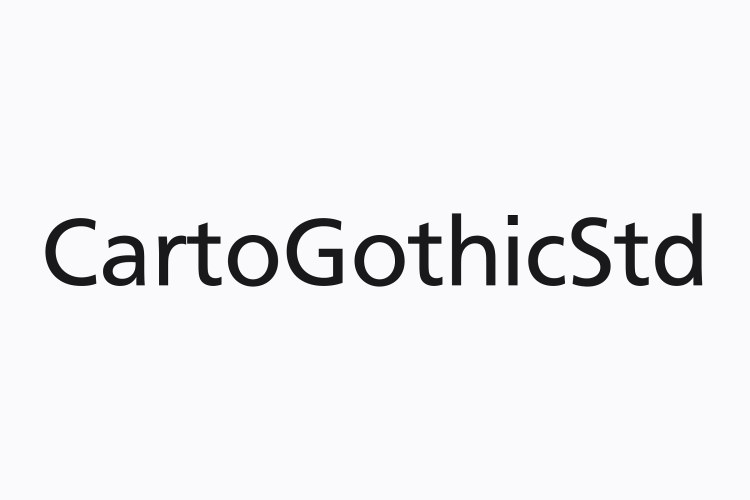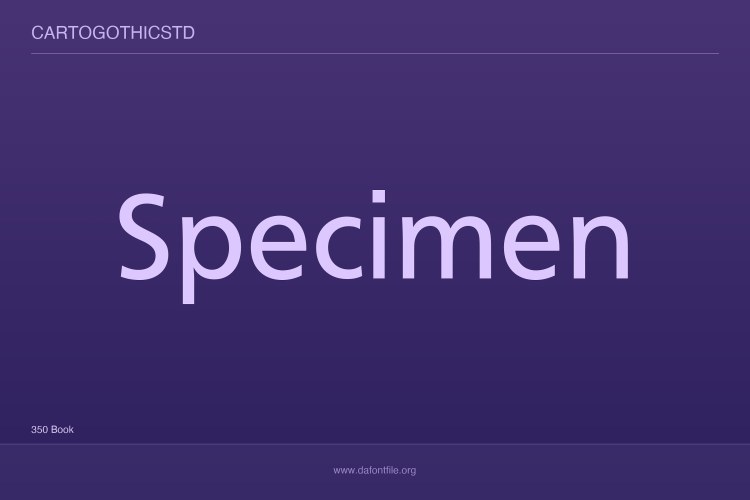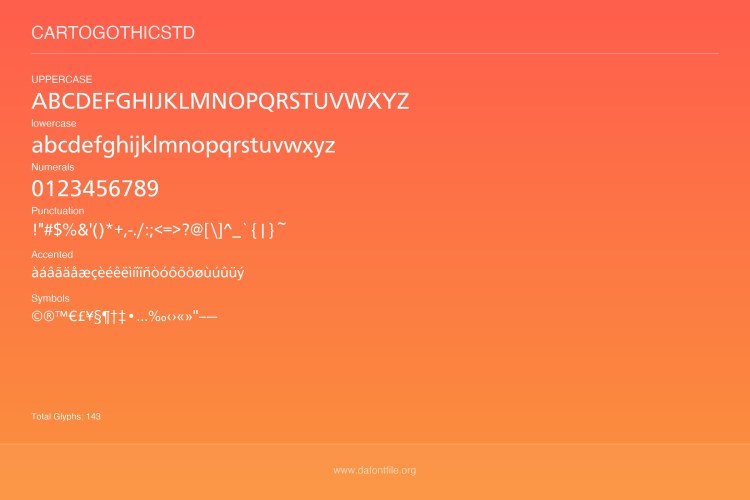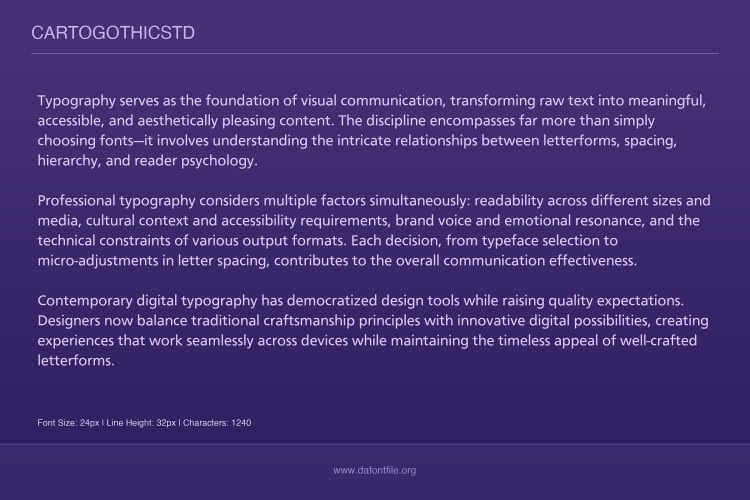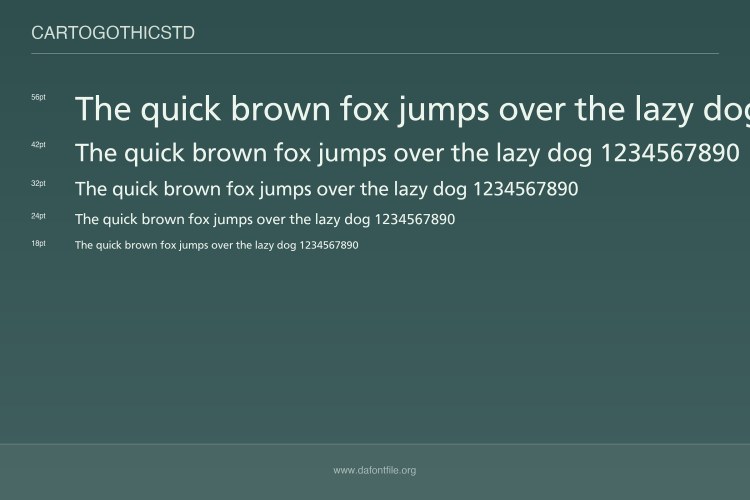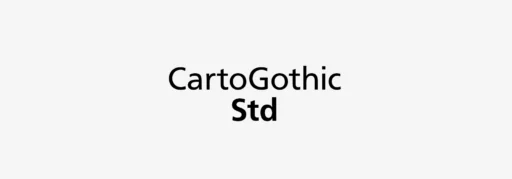
CartoGothic Std Font Family
CartoGothic Std is a clean and modern sans serif font designed for both print and digital use. Its balanced letterforms give text a professional look while keeping it easy to read. Designers use CartoGothic for websites, presentations, branding, and publications that need clarity and style.
CartoGothic Std Font Family is a Sans Serif Fonts font that brings a professional and versatile look to your projects. CartoGothic Std is a clean and modern sans serif font designed for both print and digital use.